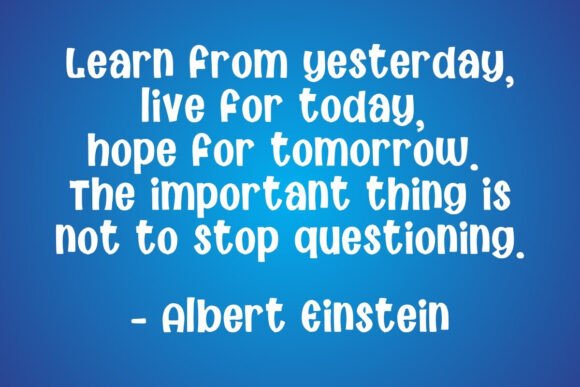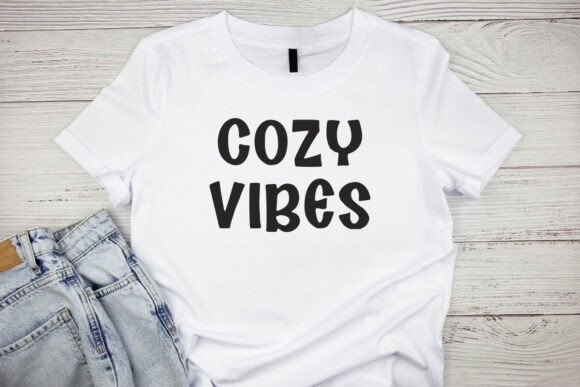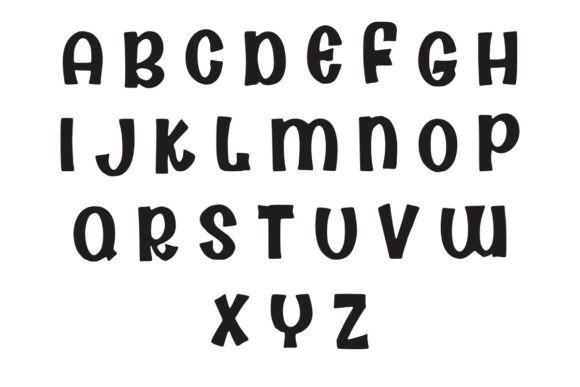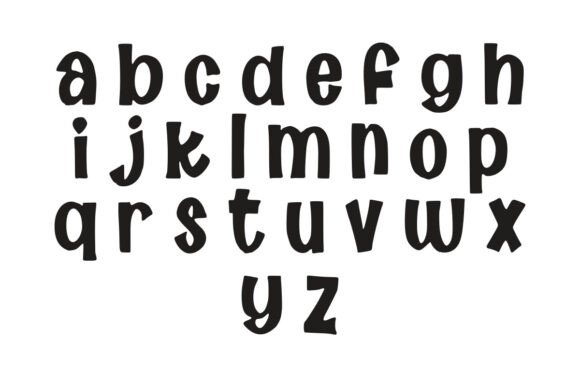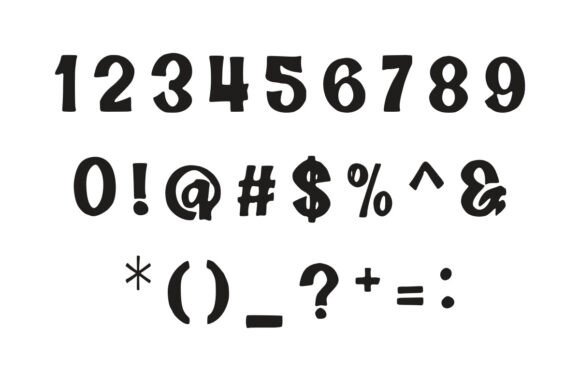
Introduction to Puffblock Font
As a designer, there’s nothing quite like the rush of excitement when you stumble upon a new font that perfectly captures the essence of your creative project. For me, that moment came when I discovered the Puffblock Font – a bold yet playful typeface that immediately made me think of bright colors, sunshine, and endless possibilities.
With its unique blend of rounded edges and chunky, hand-crafted aesthetic, the Puffblock Font is a game-changer for designers looking to add a high-quality, personal touch to their designs. Whether you’re working on a kids’ project, a greeting card, or social media graphics, this font is the perfect design resource to make your creations stand out.
Key Features of Puffblock Font
- High-quality design resource with a unique, playful style perfect for creative projects.
- Unique characteristics include a rounded, puffy shape and a fun, energetic feel, making it ideal for branding and advertising projects.
Honest Review: Puffblock Font
As a designer, I’m always on the lookout for high-quality design resources to enhance my creative projects. Recently, I had the chance to work with the Puffblock Font, and I must say, it’s been a game-changer.
- Unique and playful design style that adds a touch of whimsy to any project
- Works well in a variety of contexts, from digital to print projects
While the Puffblock Font is a great resource, it’s not without its limitations. The font is relatively new, so it may not be as widely supported as some other fonts.
Overall, I’m impressed with the Puffblock Font and would definitely recommend it to other designers. It’s a versatile and high-quality design resource that can add a unique touch to any creative project.
Puffblock Font: A High Quality Design Resource
Tips for Getting the Most Out of Puffblock Font
Use the font in creative projects where a high-quality, transparent background is required. Experiment with different font sizes and styles to add visual interest to your designs.
Puffblock Font is commonly used in social media graphics, website headers, and marketing materials where a modern and sleek design is needed. Its transparent background feature makes it ideal for use over images or videos.